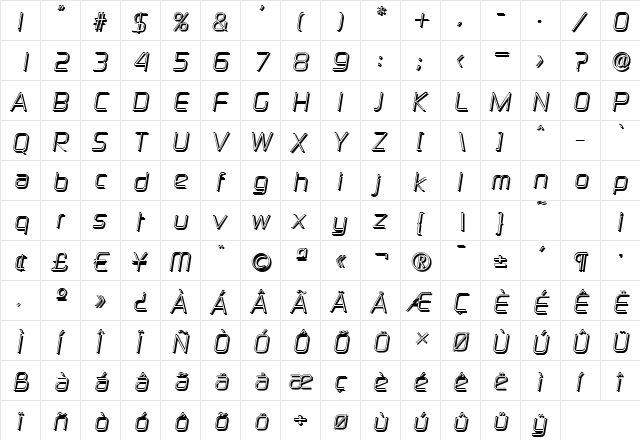
RandyBeckerShadow Italic
Design Context for RandyBeckerShadow Typeface
RandyBeckerShadow brings ornamental detail and strong personality to headlines and identities, where visual impact matters more than quiet functionality. The slanted form adds forward momentum and visual energy.
Font Pairing: Pair with a clean neutral sans-serif for body copy to let RandyBeckerShadow's character lead without overwhelming the composition.
Pro Tip: Treat RandyBeckerShadow as the centrepiece of your typographic hierarchy. One strong heading set in a decorative face can carry an entire layout.